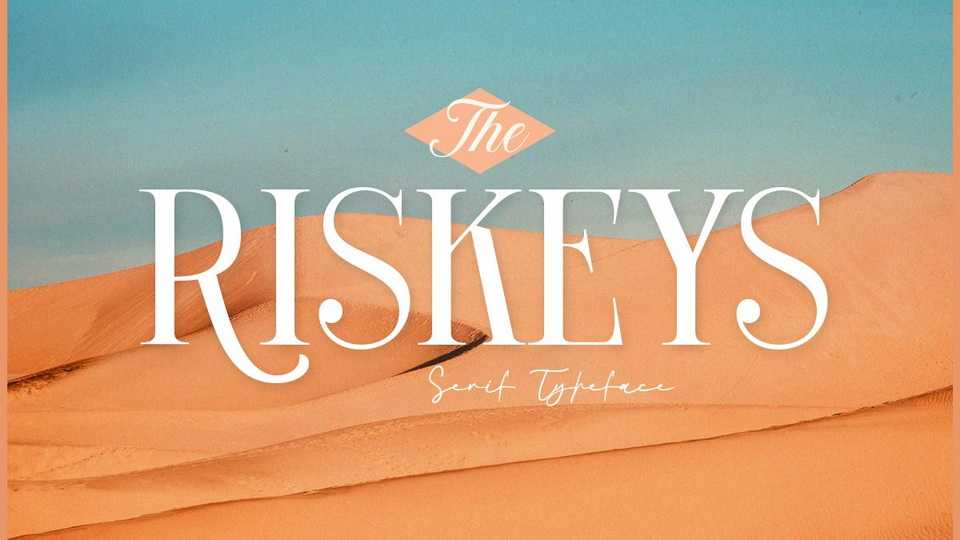
Download The Riskeys is a stylish and sophisticated modern serif typeface. The Riskeys is suitable for logo, headline, tittle, and the other various formal forms or any type of advertising purpose.